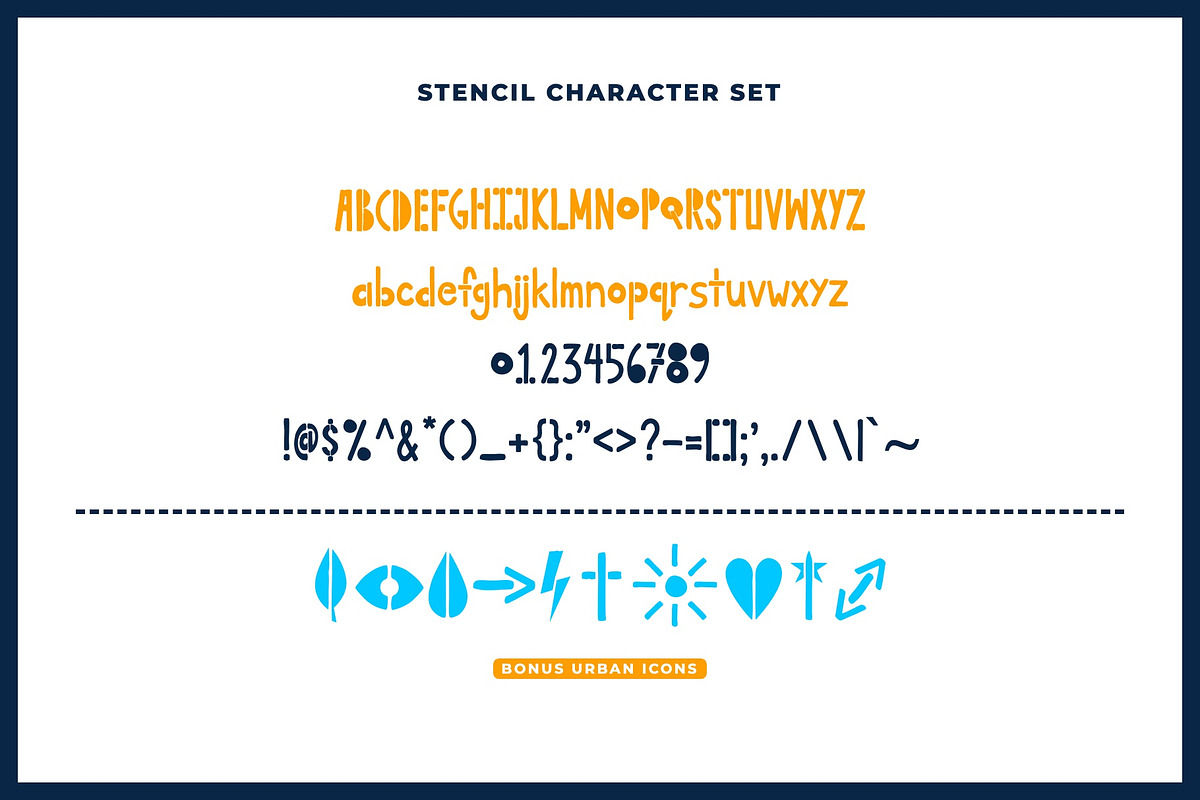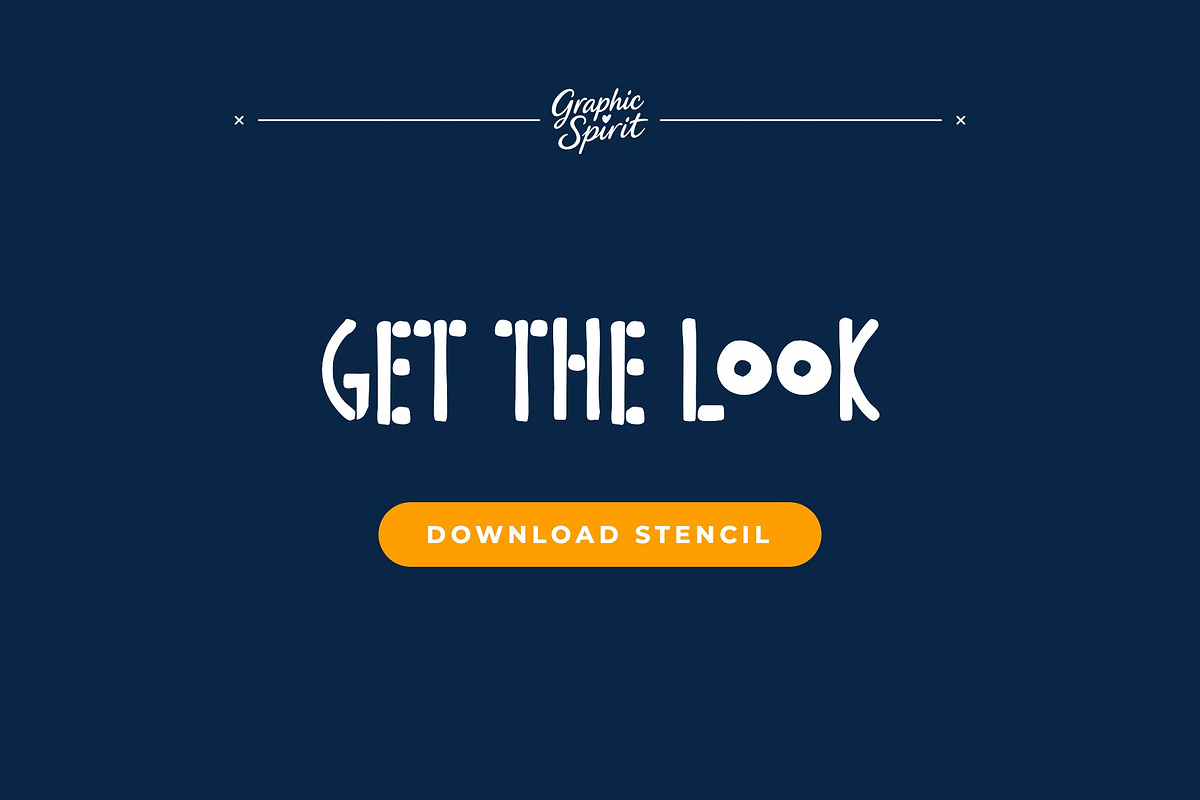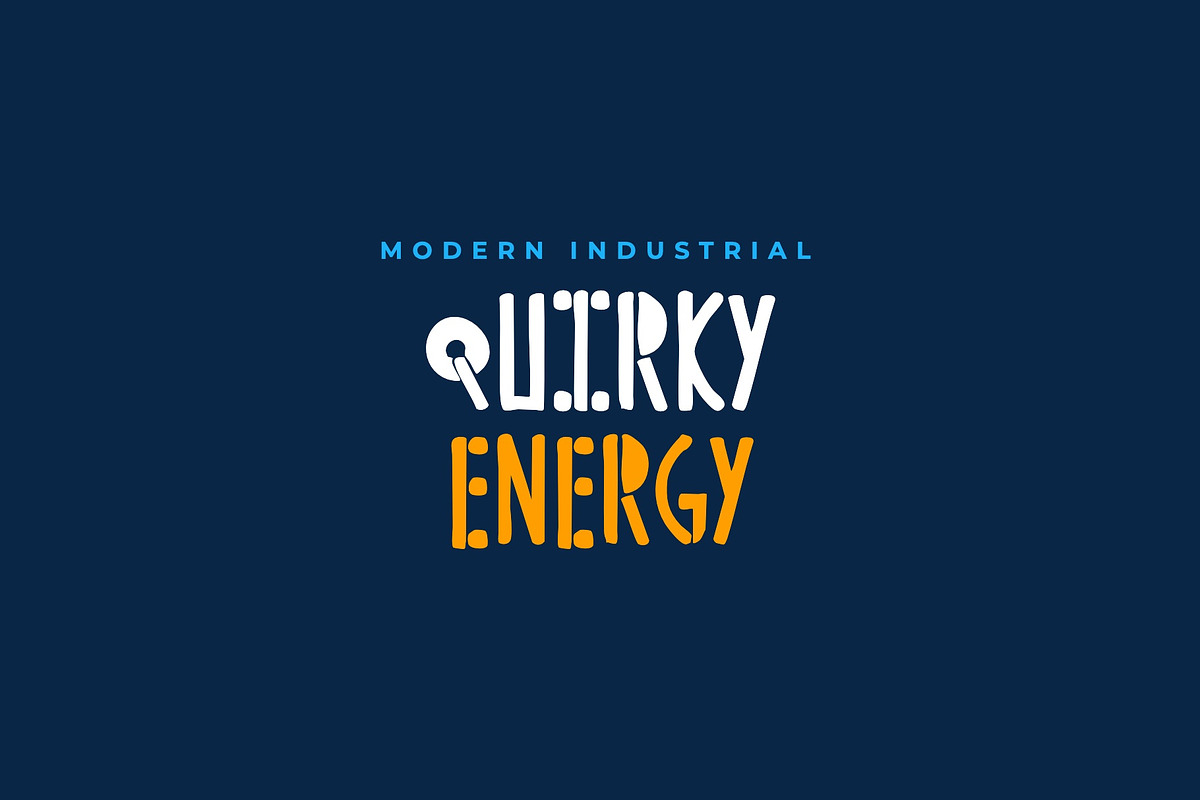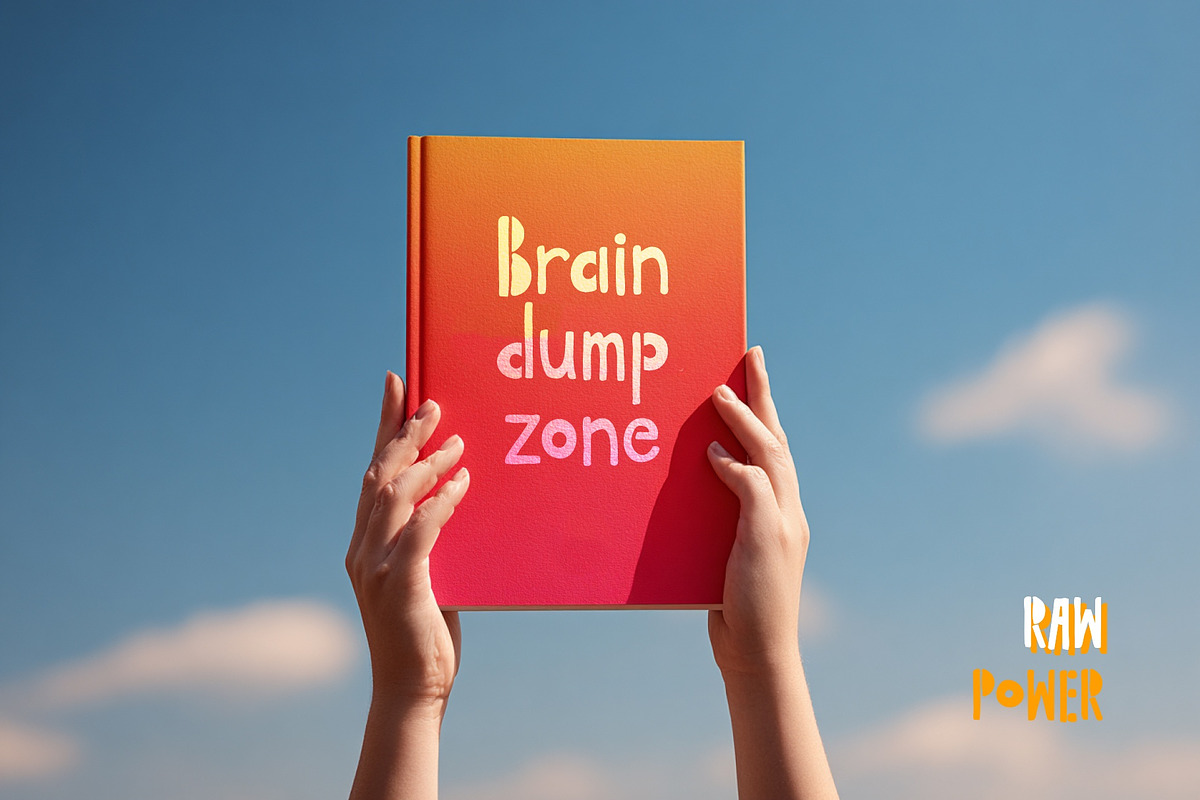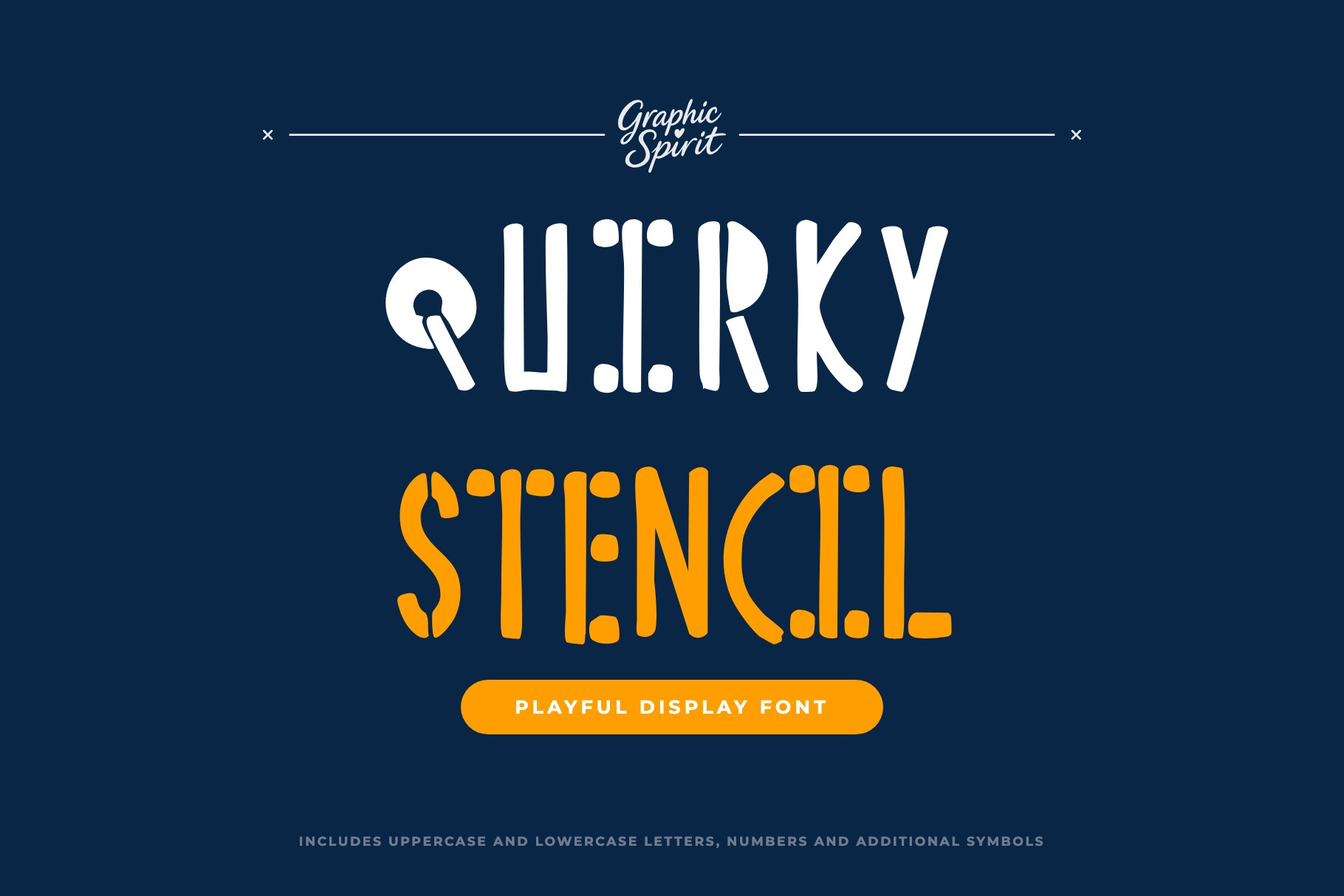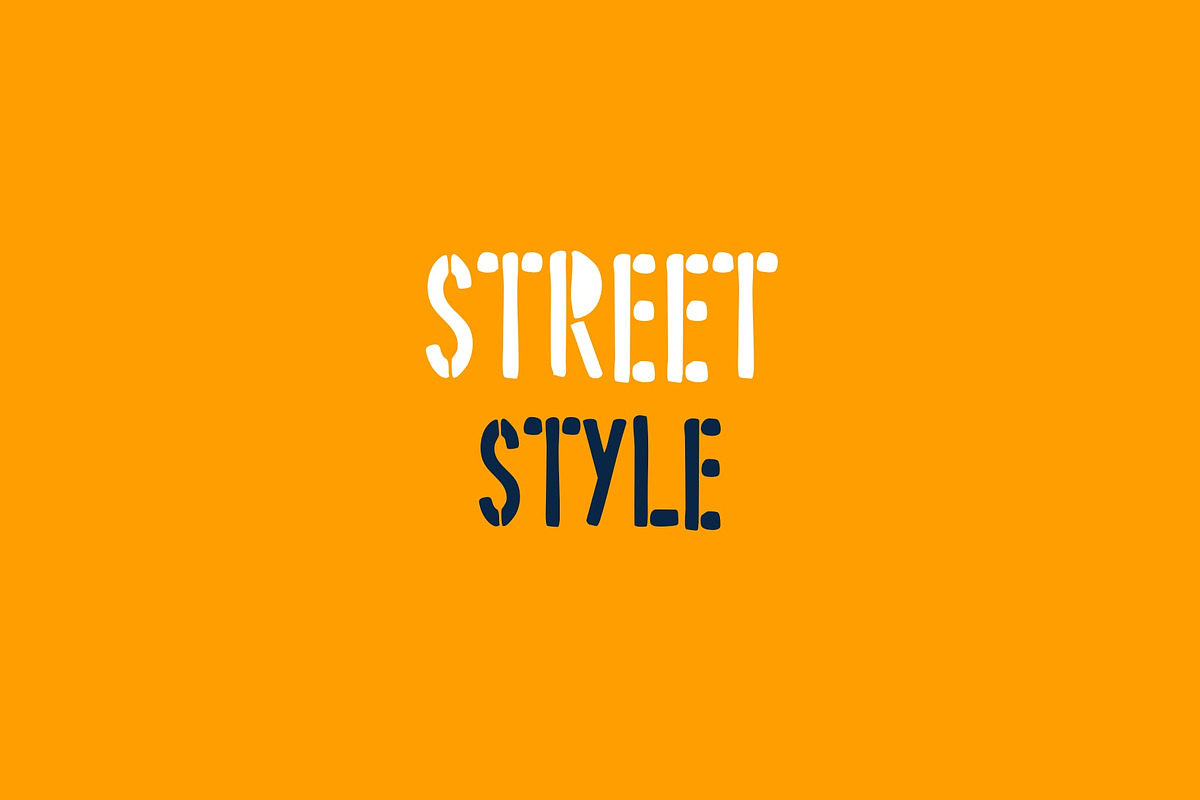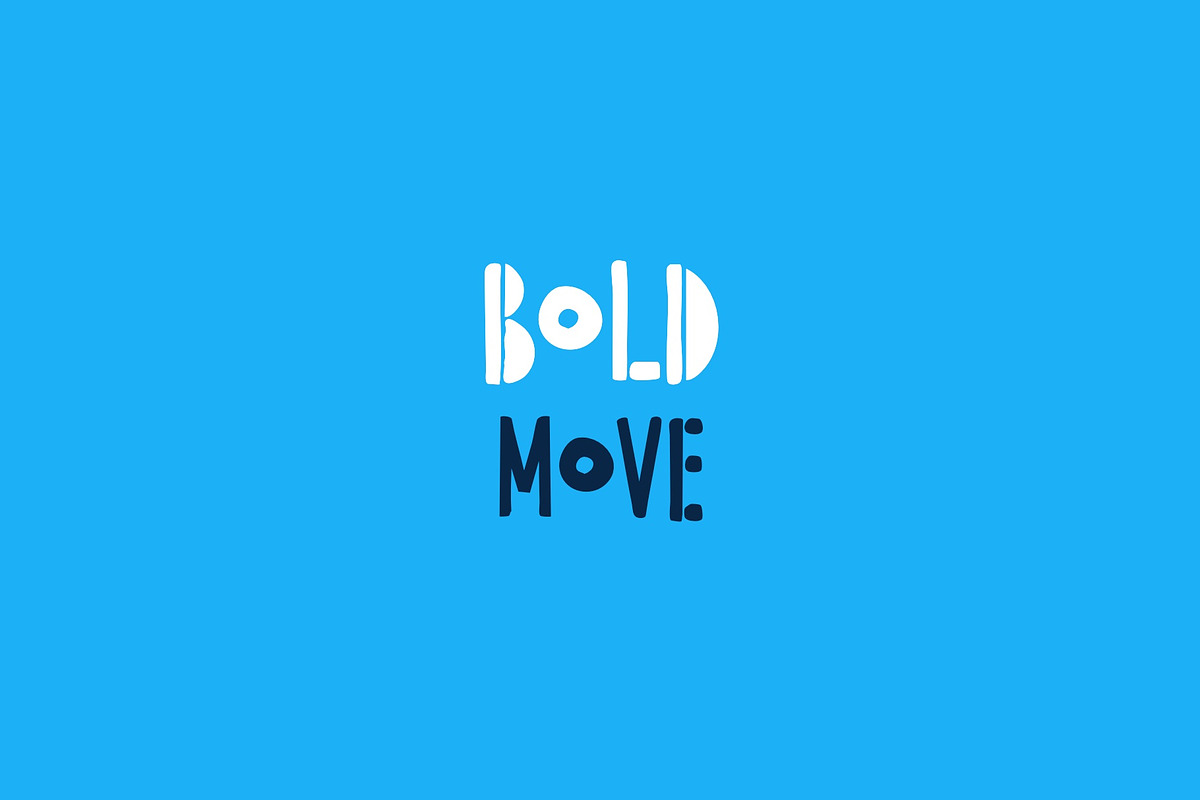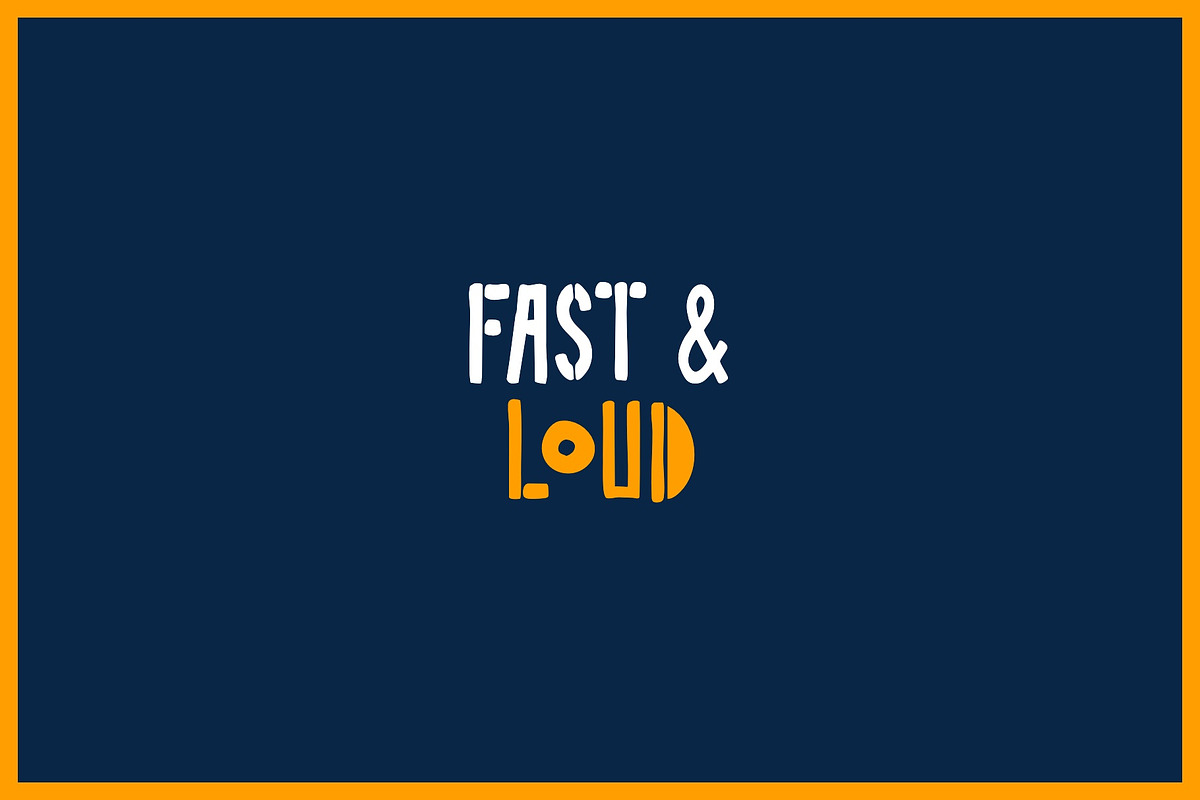
Quirky Stencil Decorative Font
Quirky Stencil is an urban and edgy stencil-inspired font that brings a bold storytelling vibe to modern design projects. As a digital download, it offers unique stencil cuts and a contemporary urban aesthetic, ideal for designers seeking an industrial and impactful look for their streetwear branding or editorial work. The typeface's structural construction and fragmented lines ensure a powerful presence in any creative layout.
Designed for impact and urban attitude, Quirky Stencil is perfect for everything from urban logos to edgy social media graphics. Its state-of-the-art design includes stencil geometric elements that allow you to customize your typography with a truly bespoke feel. Elevate your creative toolkit with this versatile font that balances contemporary style with the power of stencil-based storytelling for impactful results.